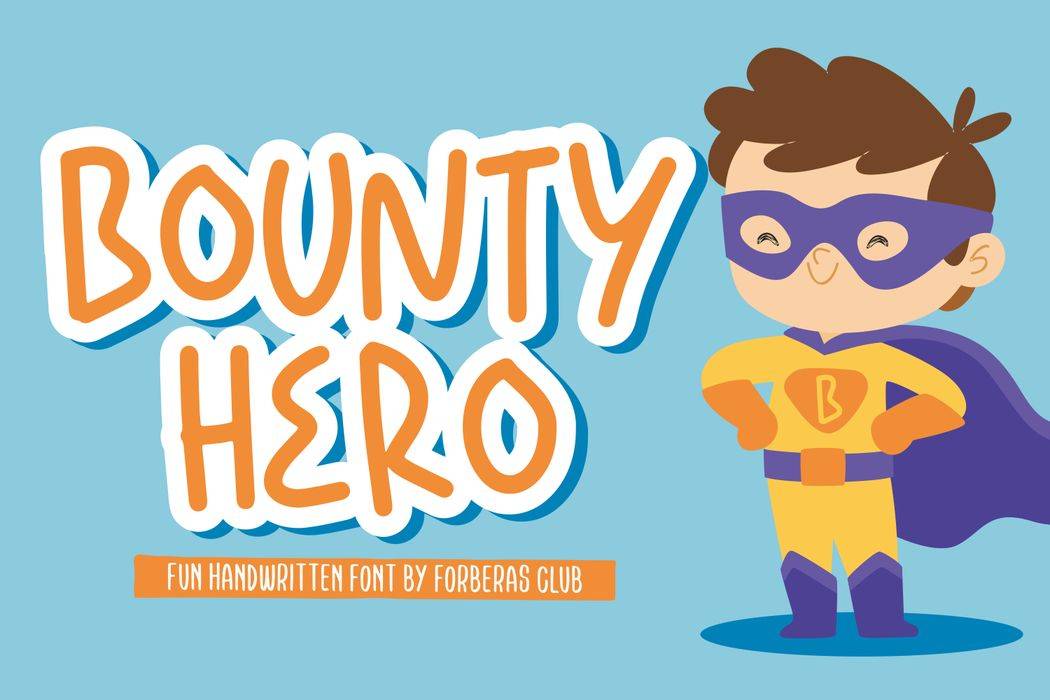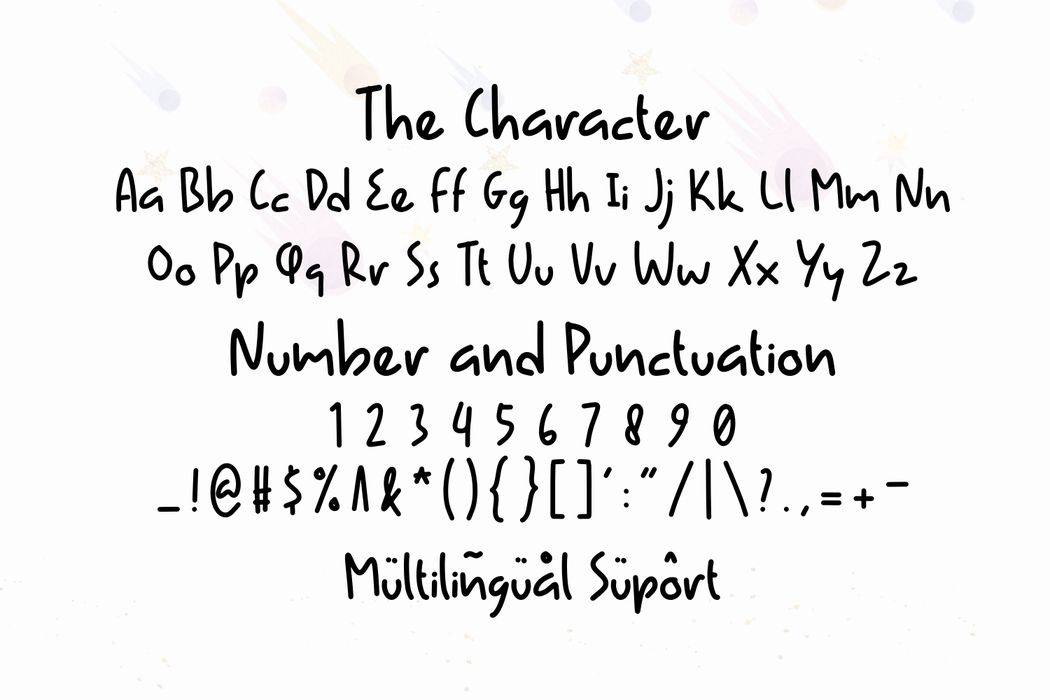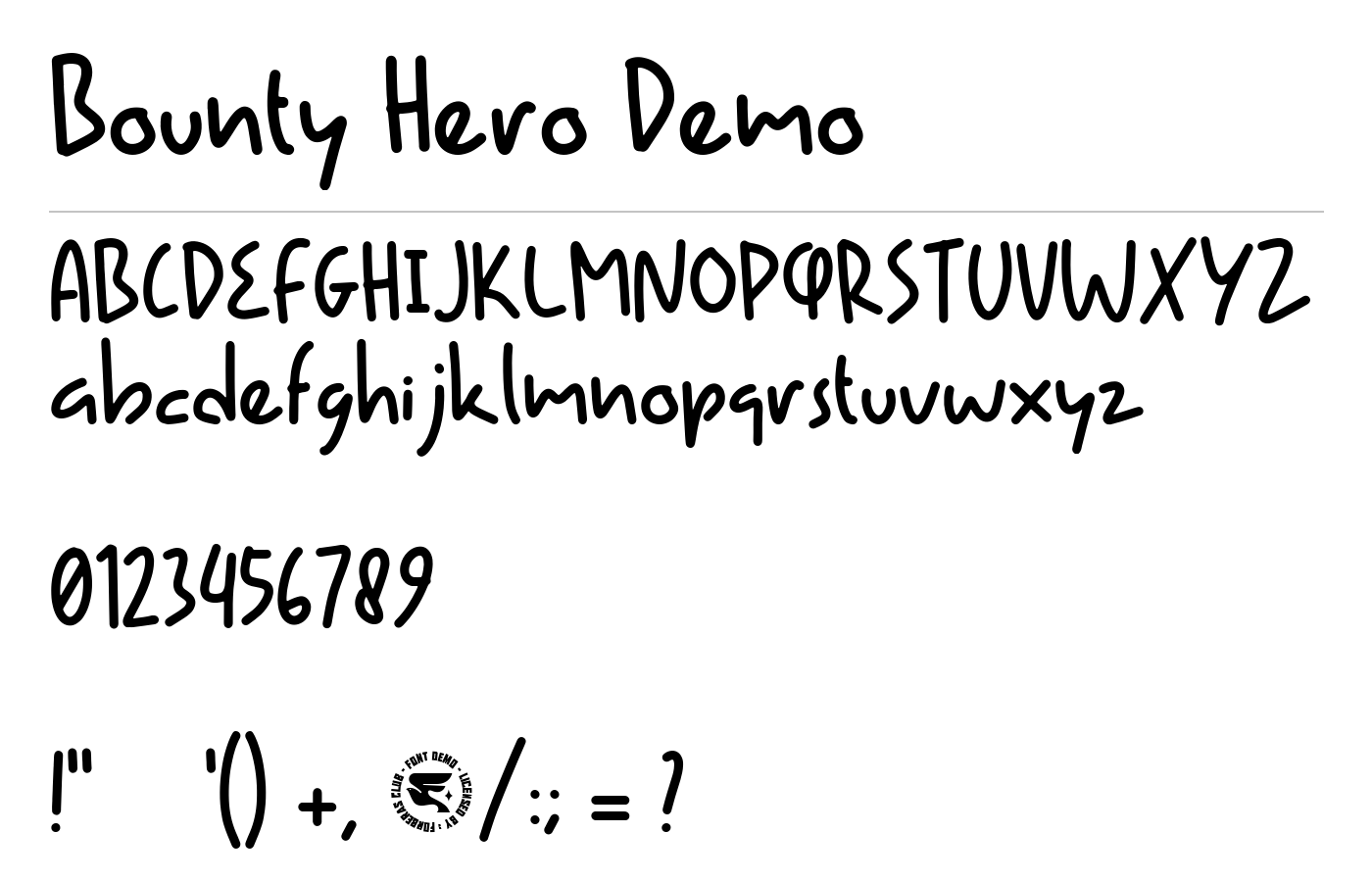
Bounty Hero is a casual, handwritten sans serif font with a friendly and approachable vibe. Its slightly irregular strokes and tall x-height give it an informal, youthful feel, making it ideal for creative projects, playful branding, and personal communications. This font works well for headlines, social media graphics, and any design that benefits from a warm, human touch.
Bounty Hero Font
About Bounty Hero Font
| Font family | Bounty Hero Font |
| Designer | forberas |